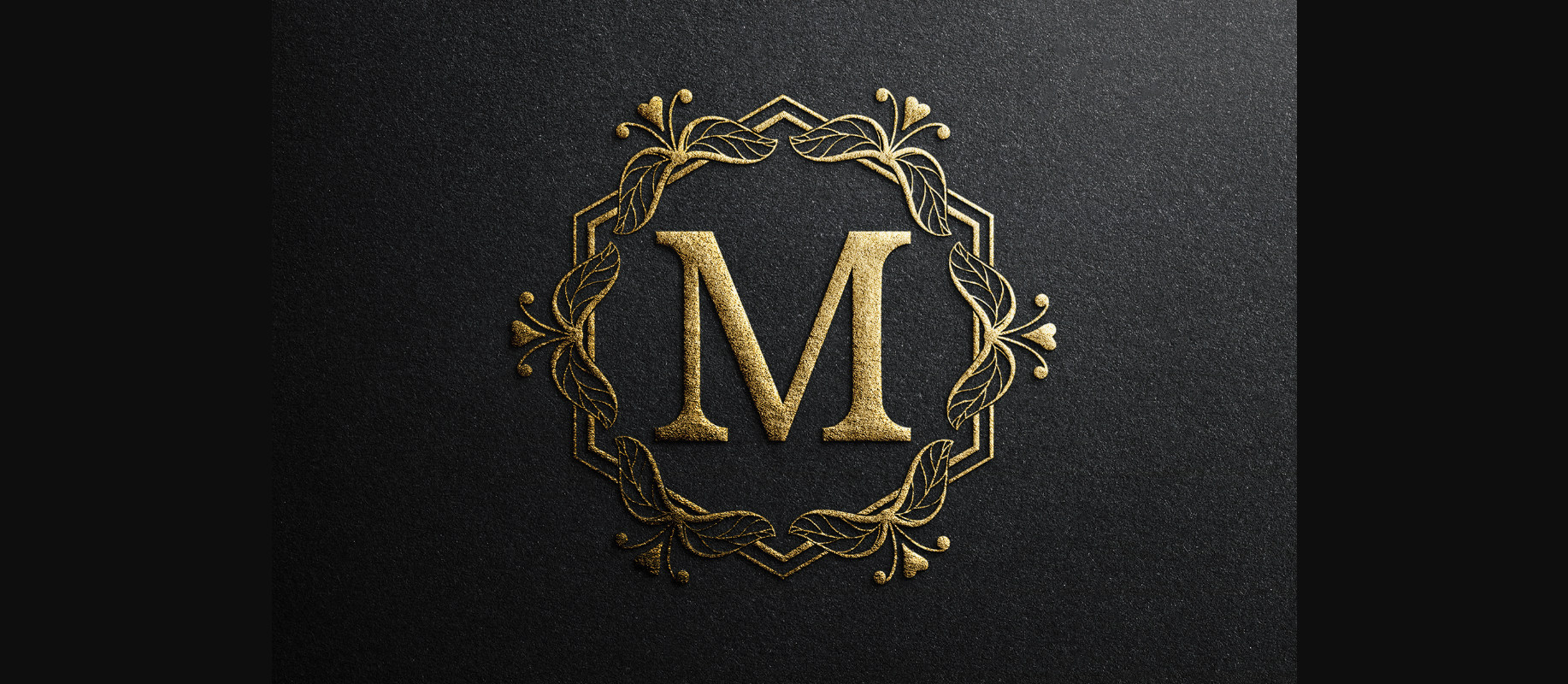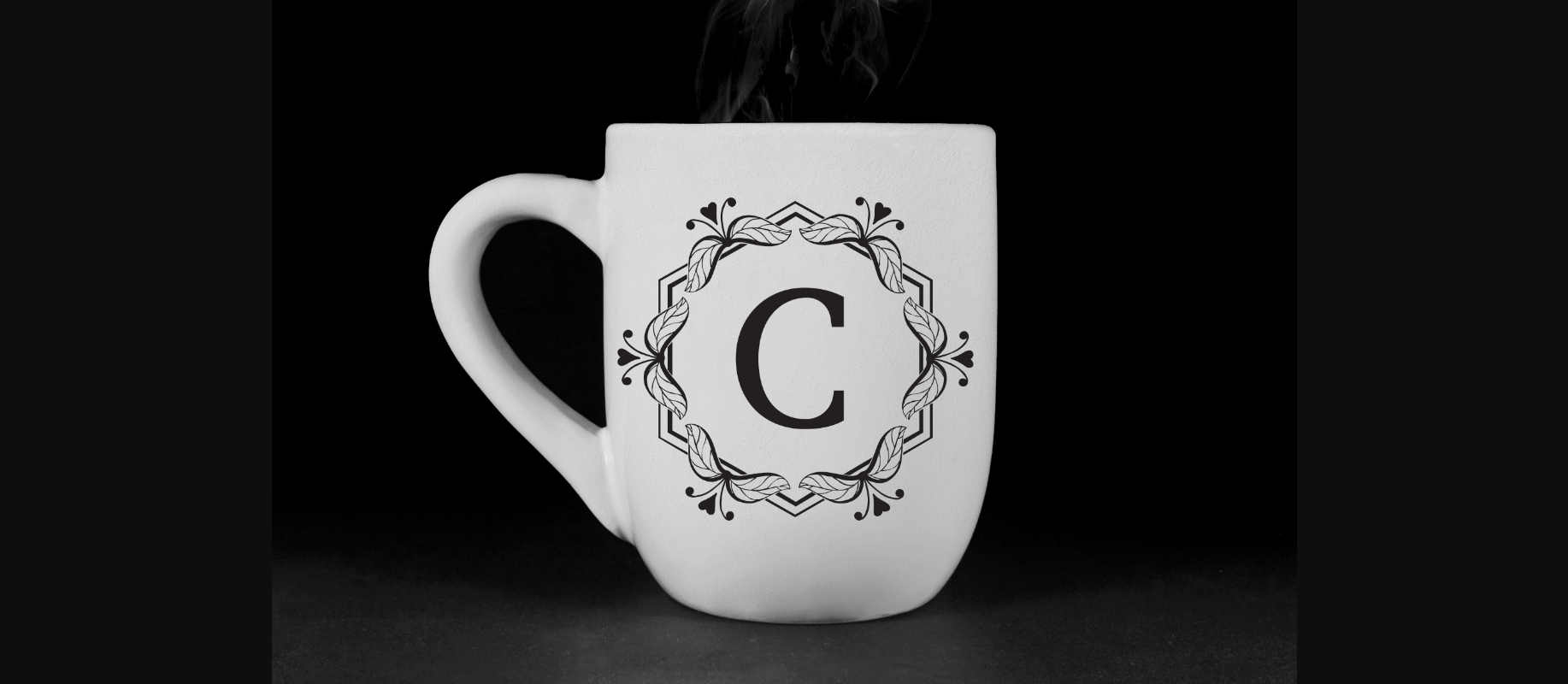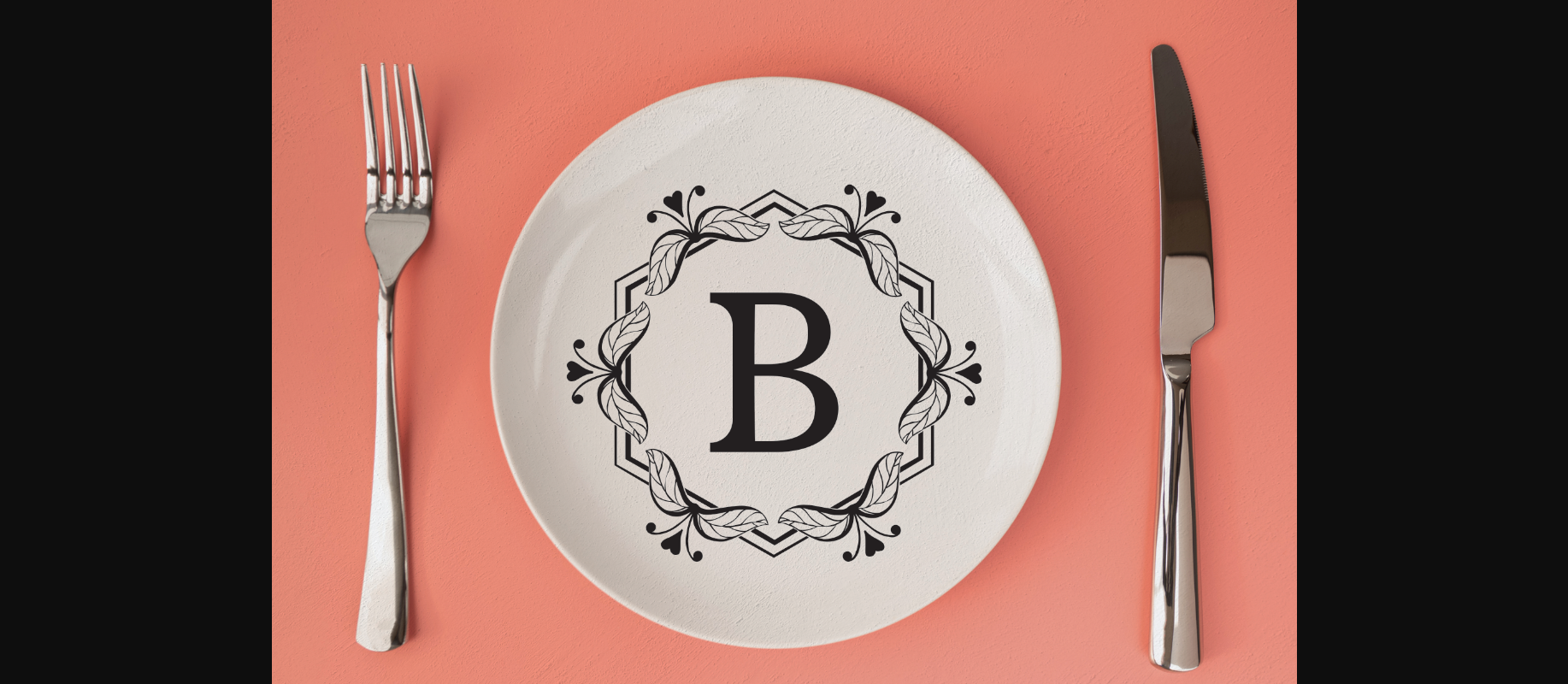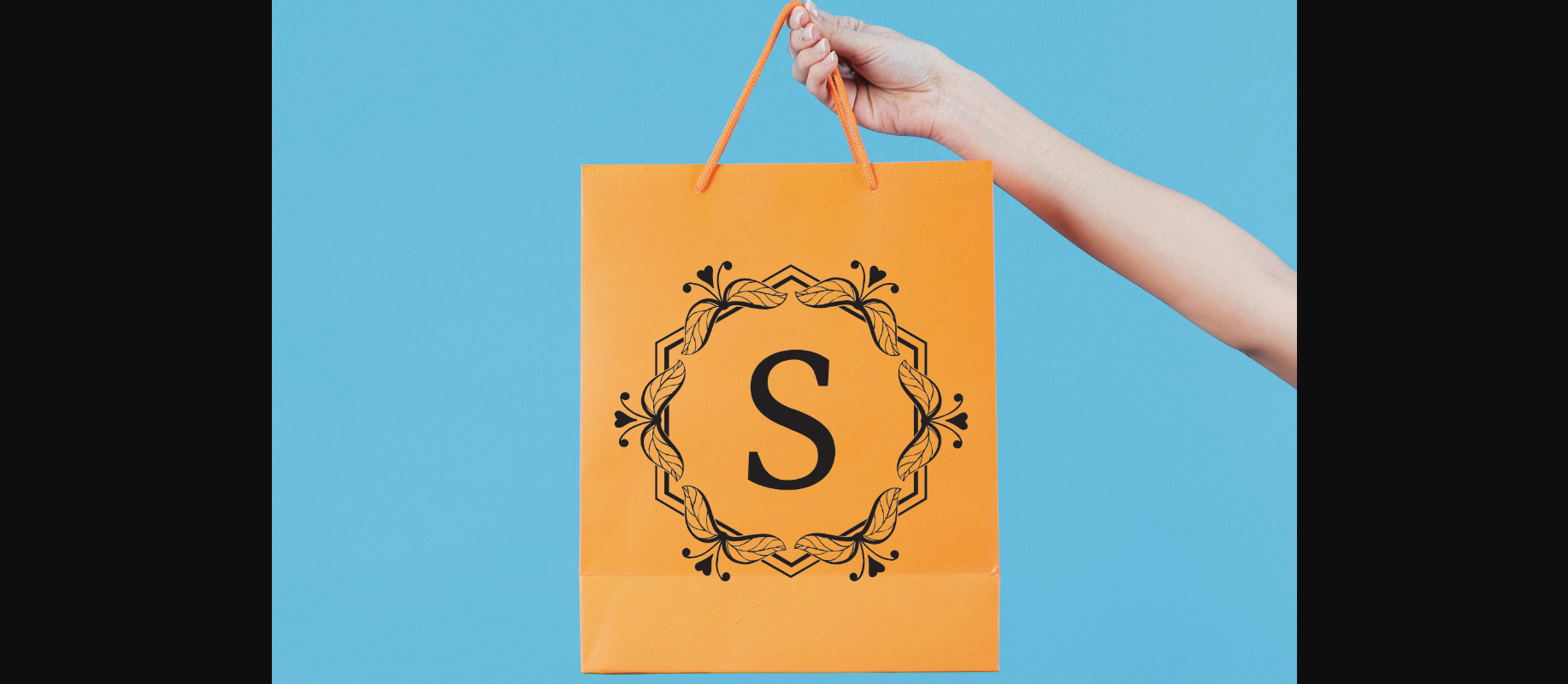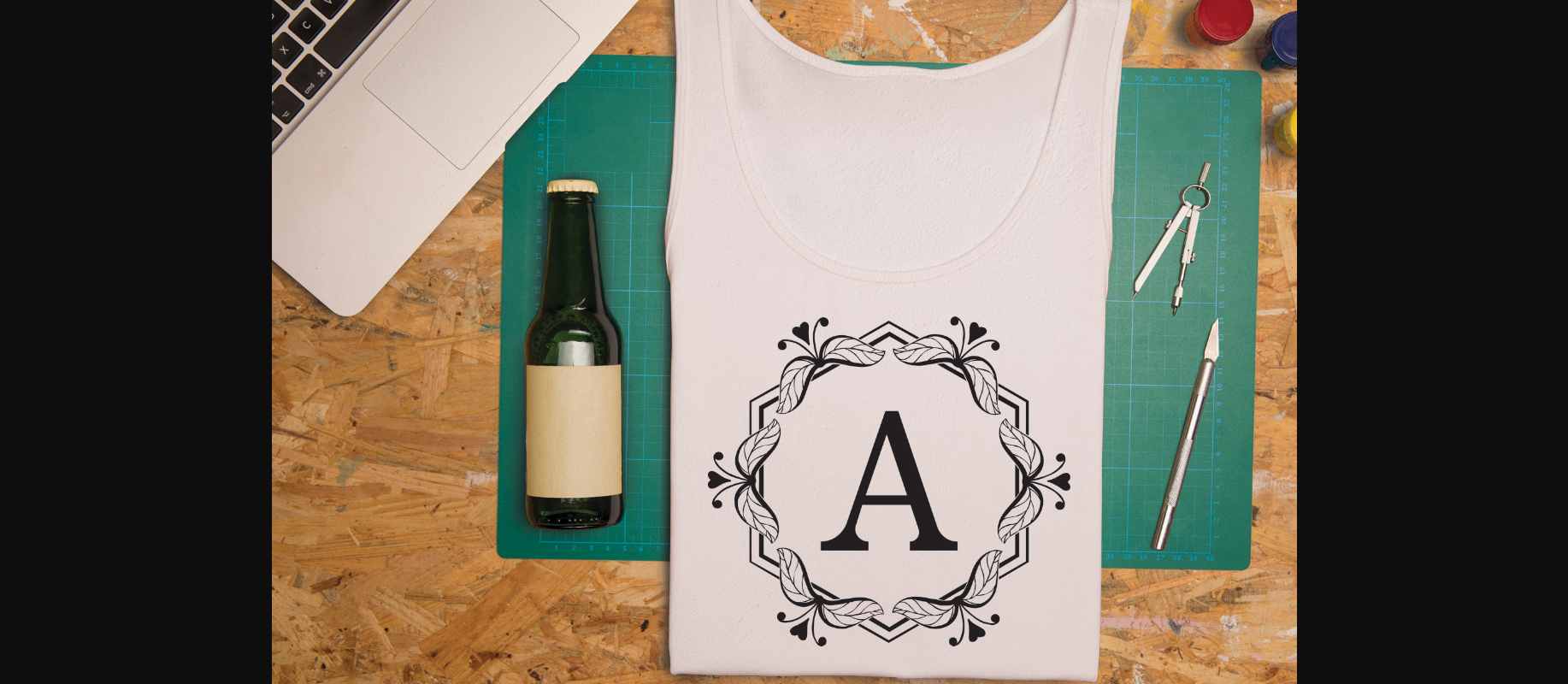
HomeDecorative FontsMagnum Font Decorative Fonts Magnum Font FacebookXPinterestWhatsApp 1 of 7 ... Magnum Font Poster 2... Magnum Font Poster 3... Magnum Font Poster 4... Magnum Font Poster 5... Magnum Font Poster 6... Magnum Font Poster 7... About Magnum Font Magnum is a luxurious decorative font. Fall for its ravishing style and use it to create gorgeous wedding invitations, beautiful stationary art, eye-catching social media posts, and much more! DOWNLOAD NOW People also explored Amsterdam Font Balifier Font Farmhouse Font Winter Haven Font Cuties Magenta Font Gilas Font Angelove Font Greenling Font Mellynda Script Font 258 0 TagsMagnumMagnum Font Previous articleCreamy Monogram FontNext articleGlossy Monogram Font LEAVE A REPLY Cancel reply Comment: Please enter your comment! Name:* Please enter your name here Email:* You have entered an incorrect email address! Please enter your email address here Website: Save my name, email, and website in this browser for the next time I comment. Personal Use Free BD AsciiMax Personal Use Free Read more about this font Scoothlane Personal Use Free Read more about this font Sweet Someday Personal Use Free Read more about this font Playground Clip Art Personal Use Free Read more about this font BLOG Free Fonts Risk: Why Free Fonts Can Be Dangerous for Designers Free Fonts Risk: Why Free Fonts Can Be Dangerous for Designers Using free fonts is a common practice in web and graphic design. However, the... Where to Buy American Fonts Online in 2024 Transform Your Website: Elevate Your Typography with 7 Best Web Font Generators The 10 Best Handwriting Fonts to Add Personality to Your Designs